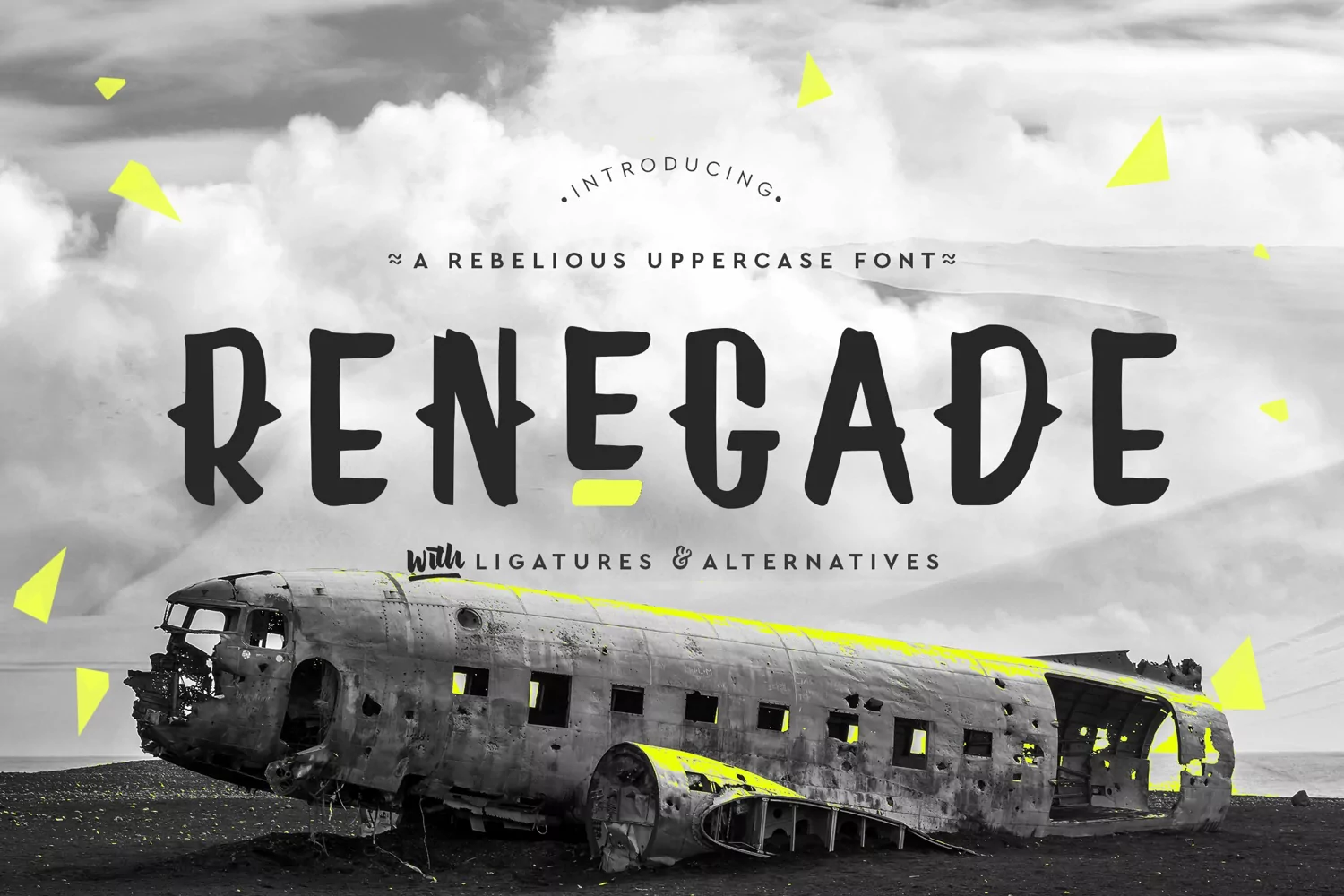
Renegade is a rebellious uppercase font which packs a punch! With ligatures and alternatives you can use Renegade in different ways to achieve that all important look and feel in your design project. If you need a statement font for your next project or design then Renegade is your perfect choice. Let's get rebellious with Renegade!